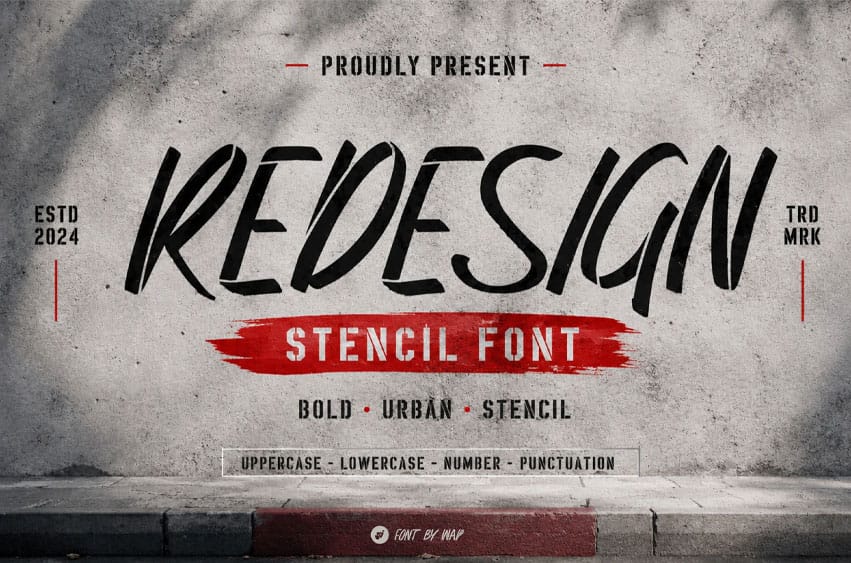
Redesign Font is a powerful and commanding stencil display font designed to bring a bold, industrial edge to your creative projects. Inspired by classic military cargo markings and rugged urban typography, this typeface combines raw strength with high visual impact.
Perfect for layouts that demand attention, strength, and a modern masculine feel.Each character is meticulously crafted with precise cutouts, ensuring excellent readability while maintaining an authentic stencil aesthetic.
- Uppercase & lowercase letters
- Numbers & punctuation
- Authentic brush texture
- Perfect for branding and display projects